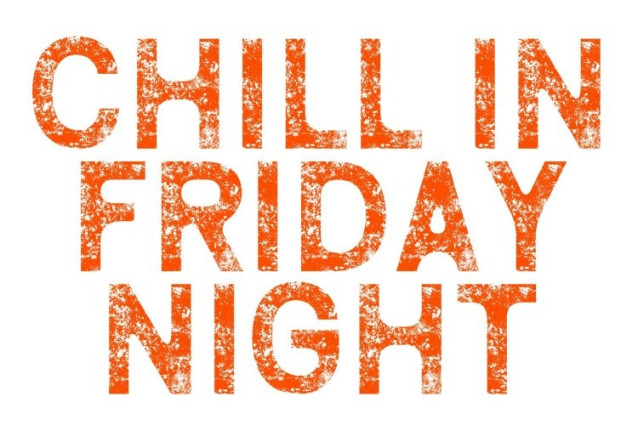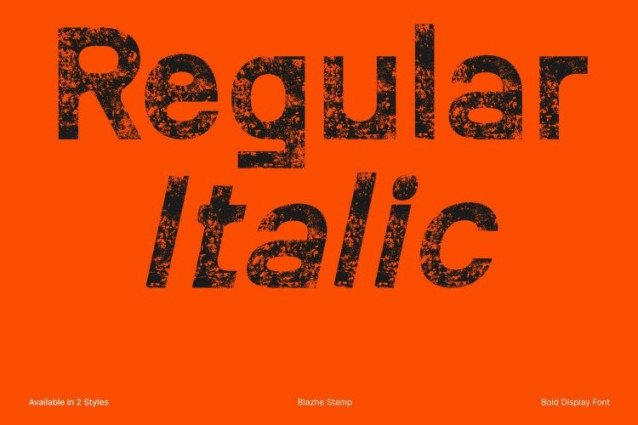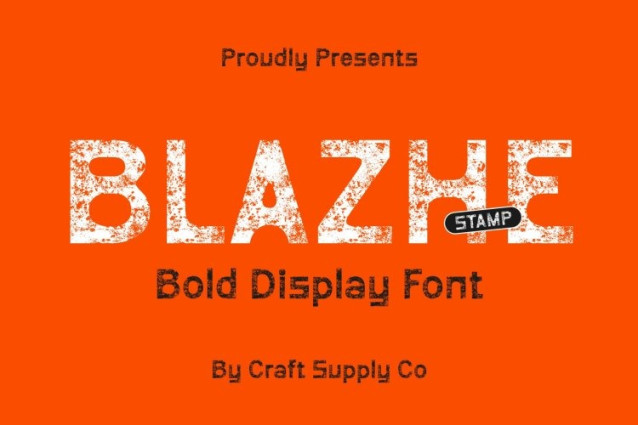
Blazhe Stamp Font
Blazhe Stamp Font This font is a stylish and experimental display sans serif that pushes boundaries with its sharp edges and unconventional brutalist geometry. Designed to break away from traditional smooth forms, this font embraces a stark, architectural look that instantly captures attention.
Stamped Texture for Dramatic Vintage Appeal
The stamp effect adds a dramatic, rugged texture across every character, giving this font a distinctive vintage-inspired presence. This textured finish introduces depth and grit, balancing the strong brutalist forms with an aged, analog charm. The resulting aesthetic feels both contemporary and nostalgic perfect for projects that seek authenticity with an experimental twist.
Perfect for Editorial Design and Graphic Projects
This font thrives in editorial layouts and expressive graphic compositions where strong typography becomes the focal point. Its bold character shapes cut through visual clutter, making headlines, captions, and typographic spreads feel dynamic and impactful. The textured personality enhances the storytelling, giving designs attitude and visual intensity.
Ideal for Posters, Branding, and Creative Displays
From modern posters to artistic branding concepts, this font delivers a unique blend of brutality and vintage charm. Its stamped texture adds mood and drama, while the unconventional geometry introduces creativity and tension.